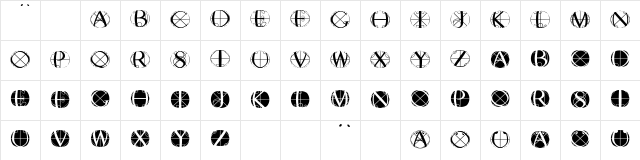
RodgauerFisheyes Regular Font Preview
RodgauerFisheyes Regular
Design Context for RodgauerFisheyes Typeface
RodgauerFisheyes is a composed and adaptable typeface that performs quietly and consistently across a wide range of design contexts.